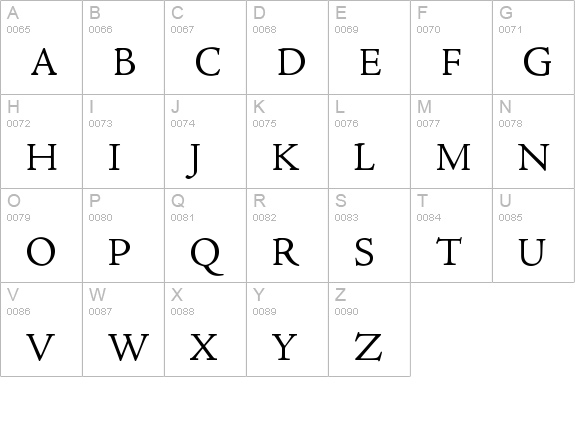
Adobe Jenson Pro Light Caption is a refined, elegant variant in the Adobe typeface family \xE2\x80\x94 well suited to elegant body text, refined sub-headings, and luxury branding.
Adobe Jenson Pro Light Caption is a sophisticated and elegant serif font that exudes timeless beauty and classic charm. With its delicate strokes and graceful curves, this typeface is perfect for adding a touch of refinement to any design project. The Light Caption variant offers a subtle and understated look, making it ideal for use in captions, labels, and other small text settings. What sets Adobe Jenson Pro Light Caption apart is not only its impeccable design but also the fact that it is available for free download at FontsMarket.com. This means that designers and creatives can easily access this high-quality font without any cost, allowing them to elevate their work with a touch of sophistication without breaking the bank. Download Adobe Jenson Pro Light Caption today and bring a touch of timeless elegance to your projects.